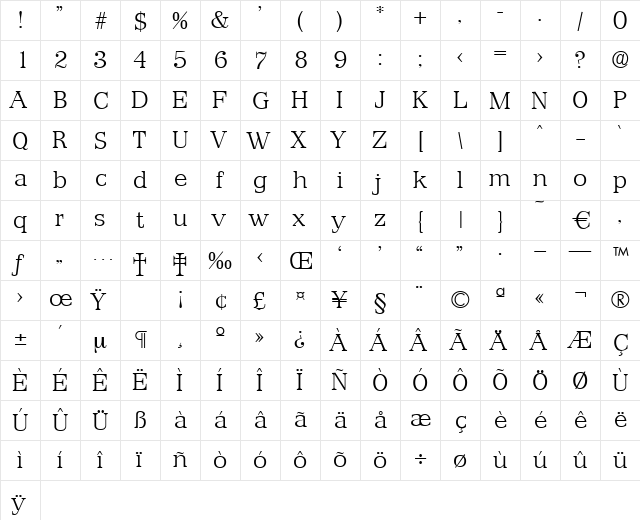
Priamos-Xlight Regular
Design Context for Priamos-Xlight Typeface
Priamos-Xlight takes a measured approach to typography — its balanced proportions and neutral character make it a reliable workhorse for both digital and print work. Its slender proportions lend an understated elegance to any composition.